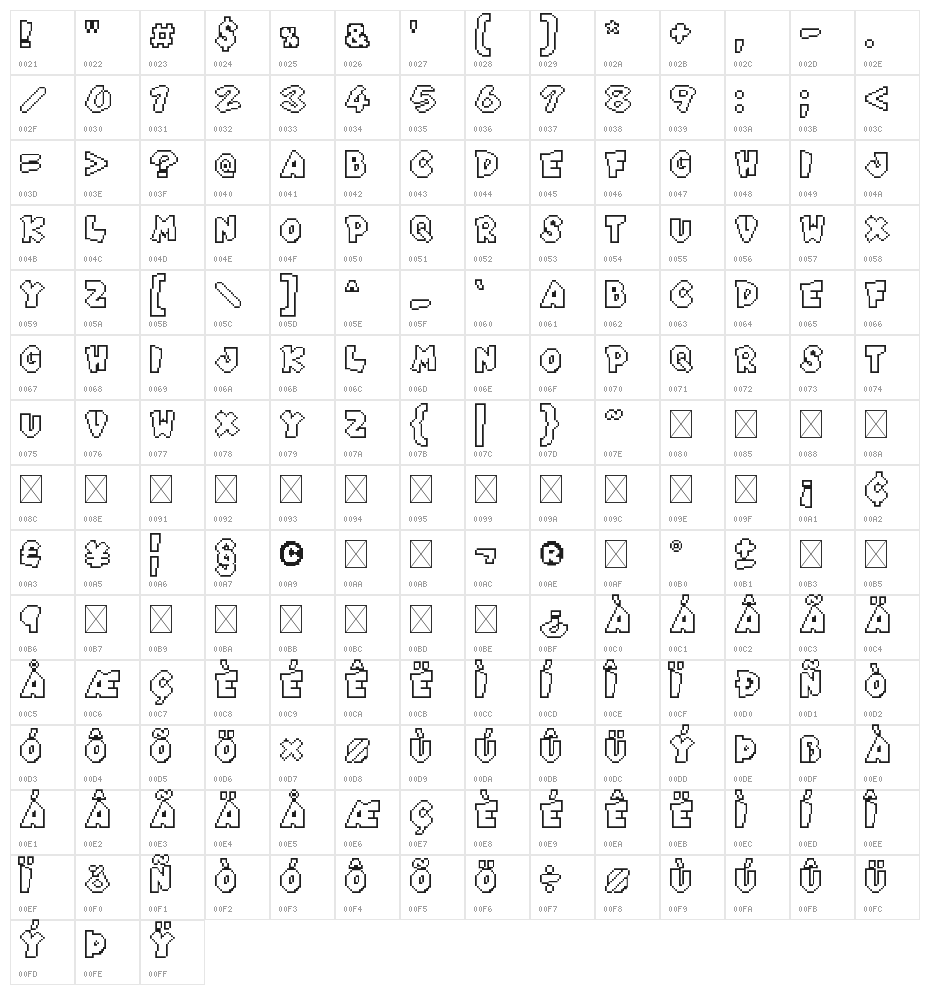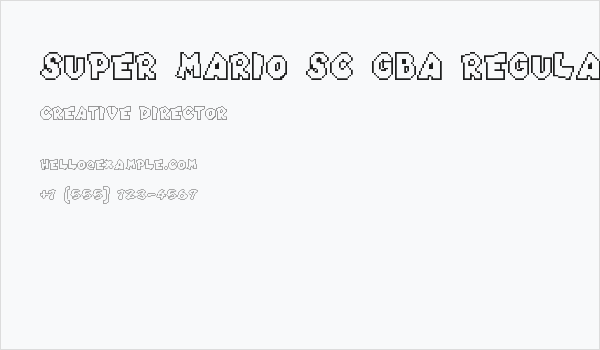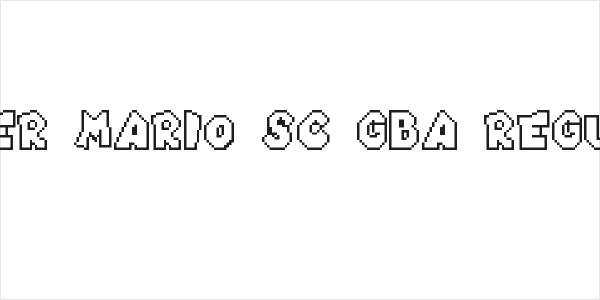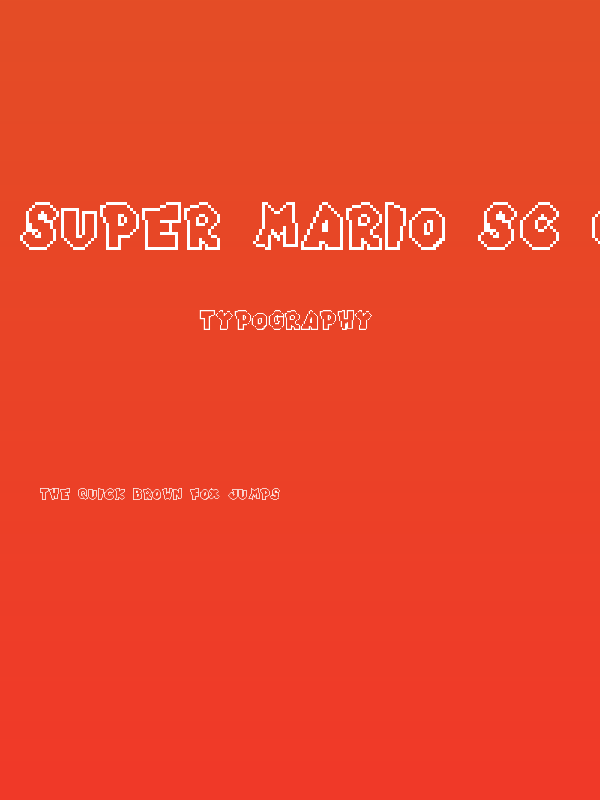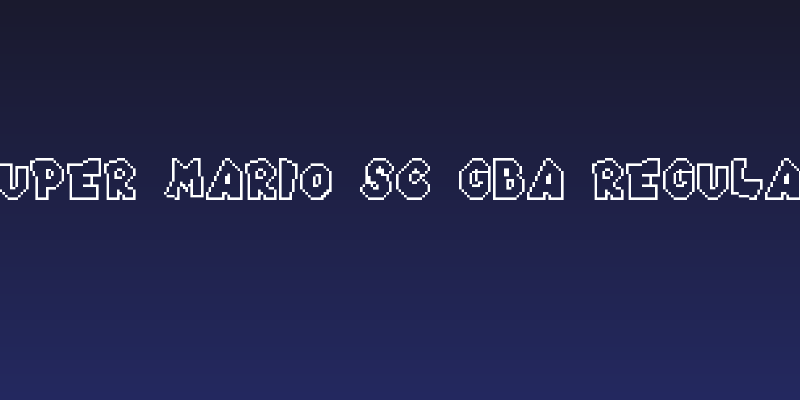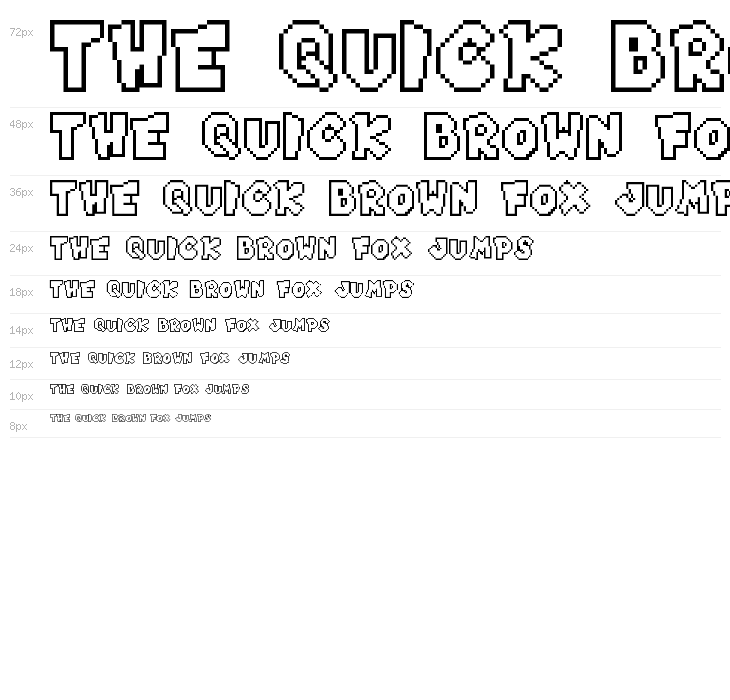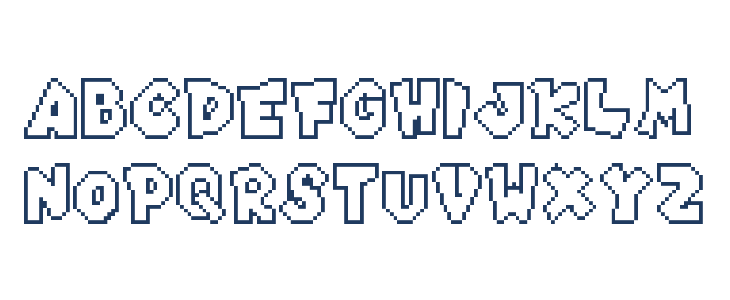
Super Mario SC gba Regular Font
Super Mario SC gba Regular Description
This font features a playful and bold outline style, reminiscent of classic video game aesthetics. The characters are blocky and geometric, with a consistent thickness throughout the strokes. The uppercase and lowercase letters share a similar structure, maintaining a uniform appearance. Numbers and special characters follow the same design principles, ensuring cohesion across all elements. The font's distinct outline gives it a three-dimensional effect, making it stand out in any design. Its retro vibe is perfect for projects that aim to evoke nostalgia or a fun, energetic atmosphere.
Overall StyleRetro, Playful
Proposed ProjectsIdeal for video game graphics, children's book titles, posters, and retro-themed designs.